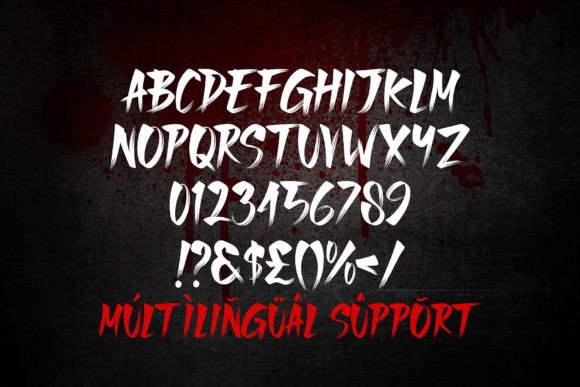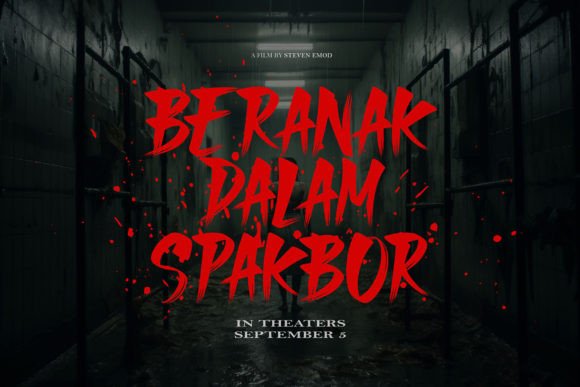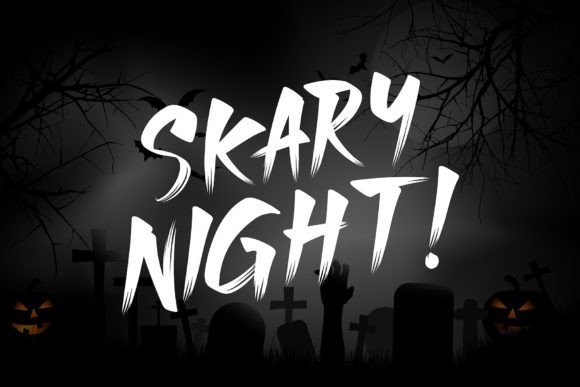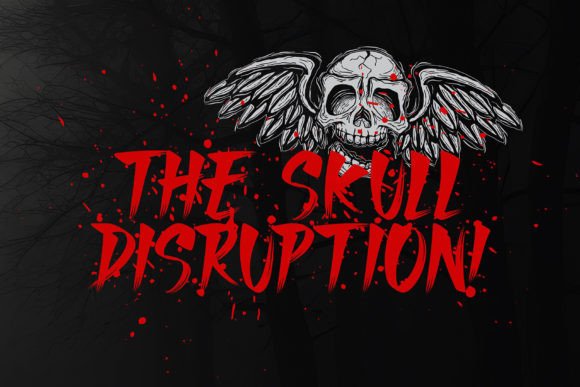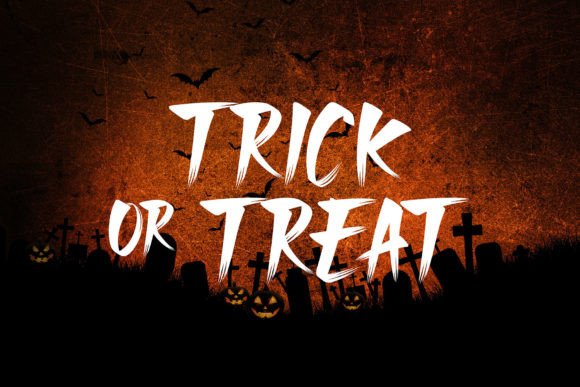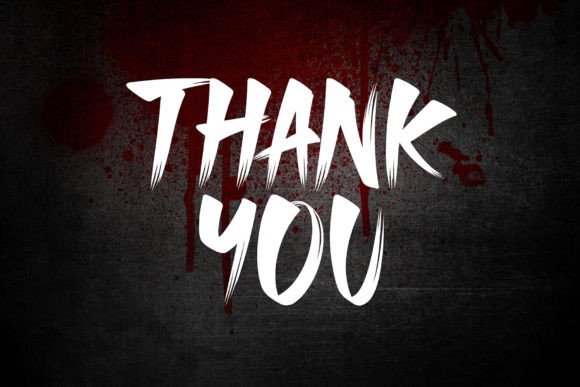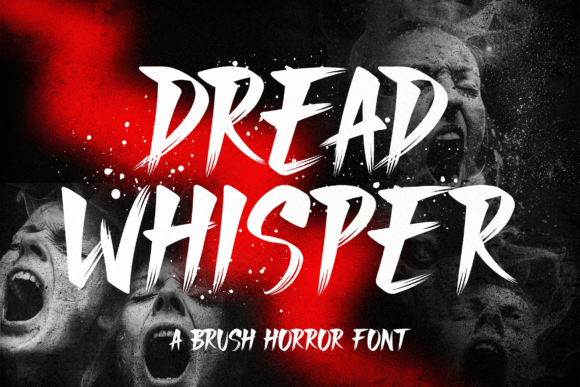
Unleash the Horror with Dread Whisper Font: Your Ultimate Companion for Spine-Chilling Creations
Are you a designer or crafter looking to infuse your work with a chilling aura that sends shivers down the spine? Look no further than the Dread Whisper Font, a unique and captivating typeface born out of intricate brushwork. This font is specifically designed to help you craft fear-inspiring narratives and visuals that will leave your audience in awe.
The Essence of Dread Whisper
Dread Whisper Font boasts jagged, hand-drawn lines that resonate with an eeriness that’s truly captivating. Its raw, unpolished aesthetic beautifully captures the essence of dread, making it the perfect ally for any designer striving to deliver truly immersive horror experiences. Whether you’re working on a Halloween flyer, an eerie invitation, or an unsettling social media post, Dread Whisper infuses your creation with an unsettlingly authentic horror vibe.
Perfect for Horror-Themed Projects
Dread Whisper Font is ideal for a wide range of spooky projects, including:
- Halloween flyers and invitations that will make your audience tremble with fear
- Eerie social media posts that will leave your followers shivering in anticipation
- Unsettling graphics and visuals that will add a touch of horror to any design
- Frightful fiction and horror stories that will transport your readers to a world of terror
Why Choose Dread Whisper Font?
So, what sets Dread Whisper Font apart from other typefaces? Here are just a few reasons why designers and crafters are flocking to this unique font:
- Unique and captivating design: Dread Whisper Font features a one-of-a-kind design that’s sure to grab attention and evoke a sense of fear and unease.
- Hand-drawn lines: The font’s jagged, hand-drawn lines add a touch of raw, unpolished aesthetic that’s perfect for horror-themed projects.
- Versatile: This font can be used for a wide range of projects, from digital designs to print materials.
Tips for Using Dread Whisper Font
To get the most out of Dread Whisper Font, here are a few tips to keep in mind:
- Experiment with different sizes and styles: Don’t be afraid to try out different sizes and styles to find the perfect look for your project.
- Combine with other fonts: Dread Whisper Font pairs well with other fonts, so feel free to experiment with different combinations to create a unique look.
- Use it sparingly: While Dread Whisper Font is perfect for horror-themed projects, it can be overwhelming if used too much. Use it sparingly to create a sense of unease and tension.
Immerse yourself in the spine-chilling aura of Dread Whisper Font and discover a world of fear-inspiring narratives and visuals that will leave your audience shivering in fear. Whether you’re a seasoned designer or a crafty DIY enthusiast, Dread Whisper Font is the perfect companion for any horror-themed project.